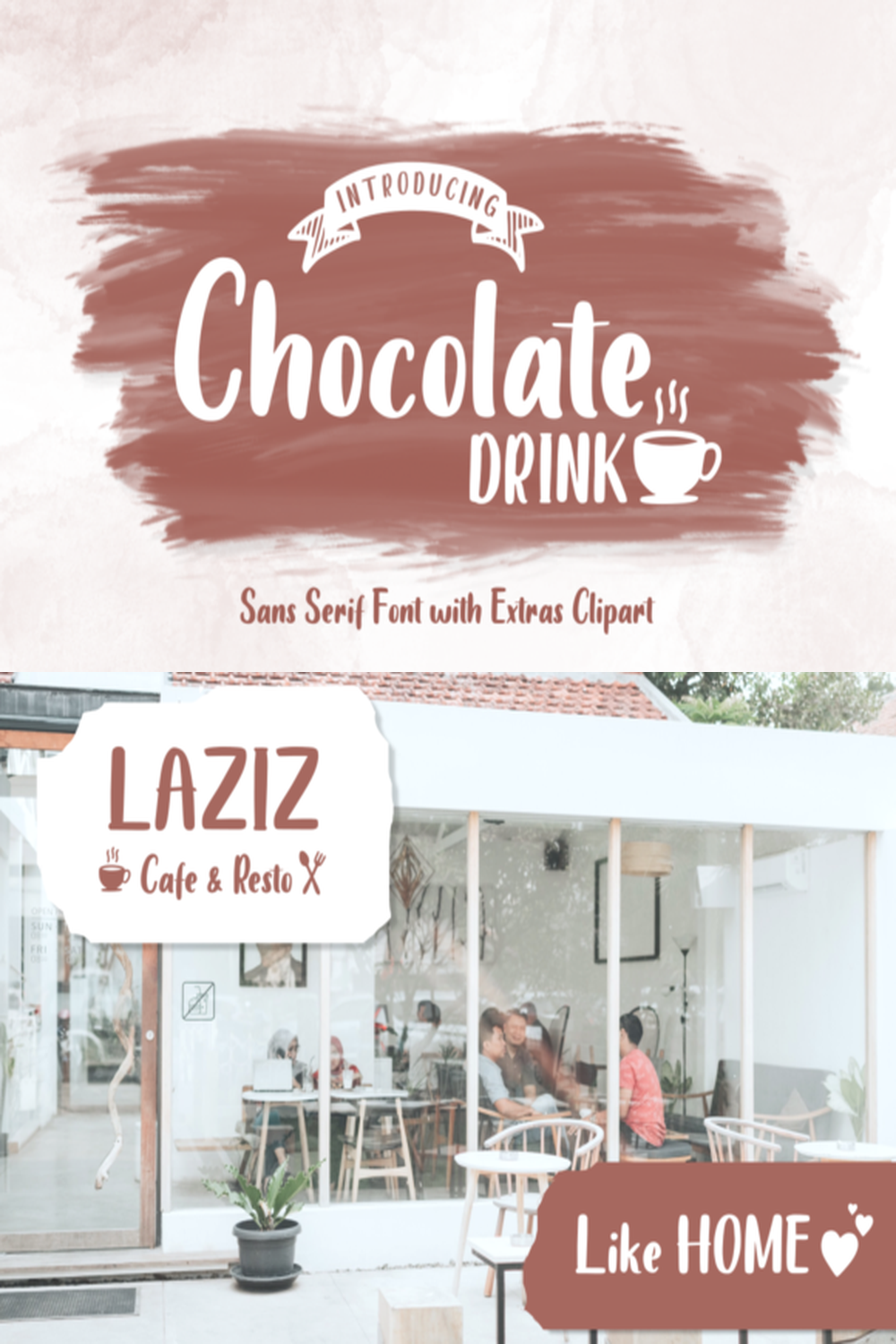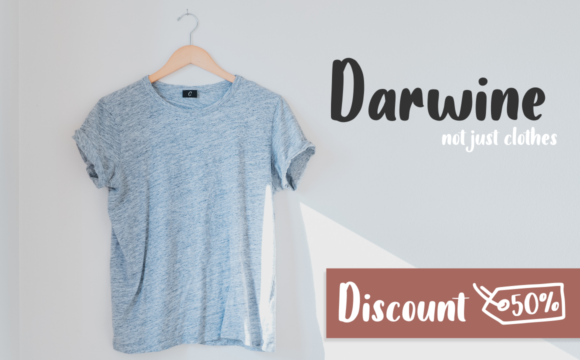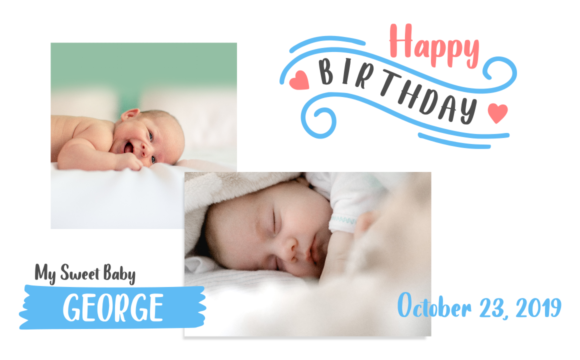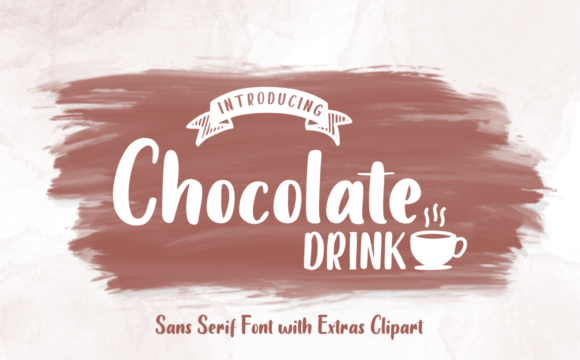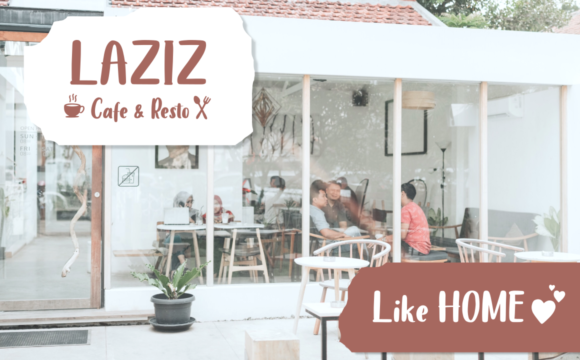
Chocolate Drink Font: A Sweet & Cute Sans Serif for Branding
About the Chocolate Drink Font
Elevate your designs with Chocolate Drink Font, a font that combines sophistication with readability. Chocolate Drink is classy sans serif font with a sweet feel. Use it to add an organic feel to any design idea!